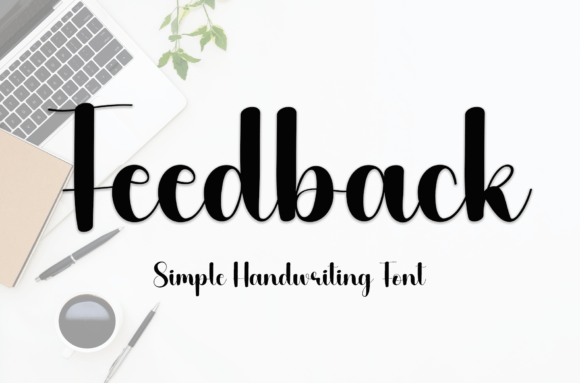
Introducing Feedback Font - Your Pathway to Timeless Aesthetics
In the realm of creativity, where words and visuals dance together, the choice of font holds immense power. It's not merely a stylistic accent; it's the silent conductor that orchestrates the emotional impact of your designs. Enter Feedback Font, a script font family crafted with elegance and charm, ready to elevate your fashion designs to new heights.
Inspired by the dynamic world of fashion, Feedback Font captures the essence of fluidity and sophistication. Its carefully designed curves mimic the graceful lines of haute couture, evoking a sense of luxury and allure. Whether you're creating wedding invitations, captivating logos, or social media posts, Feedback Font effortlessly weaves an aura of timeless elegance into your creations.
Step into a world of endless possibilities with Feedback Font. Its versatility knows no bounds, seamlessly adapting to a myriad of fashion-forward designs. From ethereal gowns and chic accessories to captivating runway shows, Feedback Font flawlessly complements your vision, adding a touch of enchantment to every stroke.
Crafted by the talented hand of William Jhody, Feedback Font embodies the essence of uniqueness. Each meticulously crafted letterform reflects his passion for creating fonts that inspire and ignite creativity. With Feedback Font as your creative companion, you'll embark on a journey where your designs transcend the ordinary, leaving an indelible mark on the fashion landscape.
Unleash your inner artist and embrace the limitless possibilities of Feedback Font. Its user-friendly nature makes it accessible to designers of all levels, allowing you to effortlessly incorporate its beauty into your projects. Let your imagination soar and let Feedback Font guide you towards masterpieces that captivate and inspire.